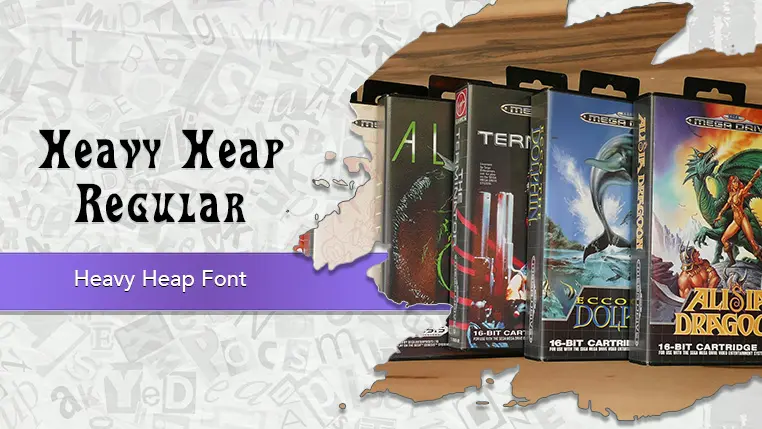
The Heavy Heap font family may be ideal for you if you enjoy working on an artistic design project. The lively, expressive look of this typeface, which was created by Typodermic Fonts, makes it ideal for Retro and Vintage Designs. Excellent for products like hot sauces, snack foods, or toys that want to convey a fun, energetic, and slightly rebellious personality. Its eye-catching and distinctive letterforms make it a great choice for titles, headlines, and logos where you want to grab attention immediately. Perfect for titles and branding in video games, cartoons, or animated films with a whimsical, retro feel. Its heavy, chunky style stands out and works well for creating impactful and memorable event posters. and other light-hearted visual projects.
Regular are the one primary font styles of the Heavy Heap font family. You may build dynamic, visually appealing text layouts with the distinct flair that each style offers. With crisp, readable lines and a relaxed tone.